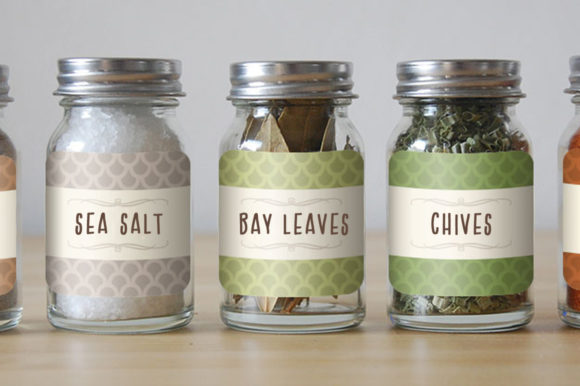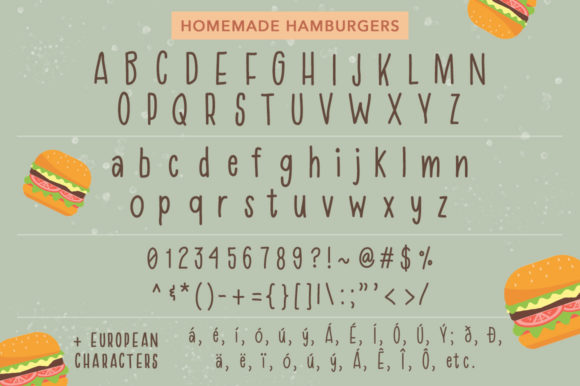
Introduction to Homemade Hamburgers Font
There’s something special about a handwritten note or a chalkboard sign that adds a personal touch to any creative project. It’s the imperfections and the authenticity that make it stand out. For designers looking for that unique, homemade feel, the Homemade Hamburgers Font is a game-changer.
Imagine being able to evoke the nostalgia of a summer BBQ or a cozy backyard dinner with just a few strokes of the pen. The Homemade Hamburgers Font does just that, with its simple, quaint design that screams “homegrown” and “organic”. Perfect for projects that need a touch of whimsy and personality, this font is a valuable addition to any design resource.
Whether you’re working on a design project that requires a transparent background or a free download, the Homemade Hamburgers Font is a high-quality option that’s sure to impress. Its versatility and charm make it a must-have for designers who want to add a personal touch to their work.
Key Features of Homemade Hamburgers Font
- Unique design concept: A creative project that brings together the idea of homemade burgers, perfect for food-related businesses or personal projects.
- High-quality design: The font is designed with high-quality graphics, resulting in a professional and appealing appearance.
Honest Review: Homemade Hamburgers Font
As a designer, I’m always on the lookout for unique and high-quality design resources to elevate my creative projects. The Homemade Hamburgers Font caught my eye, and I was excited to put it to the test.
Here are the highlights of my review:
- ✨ The font has a playful, nostalgic vibe that’s perfect for projects that need a casual, approachable feel.
- ✨ The high-quality design ensures that the font looks great at various sizes, making it a great choice for a range of applications.
- ⚠️ The font may not be suitable for projects that require a more formal or sophisticated tone.
Overall, I was impressed with the Homemade Hamburgers Font’s unique style and high-quality design. While it may not be the best fit for every project, it’s a great addition to any designer’s toolkit. With a little creativity, it’s easy to see how this font can add a fun and playful touch to any design project.
The Homemade Hamburgers Font is perfect for creative projects, such as designing menus, flyers, or social media graphics. Its high-quality design and transparent background make it a great resource for designers and non-designers alike.
To get the most out of the Homemade Hamburgers Font, be sure to use it in conjunction with other design elements that complement its playful and fun style. Experiment with different font sizes, colors, and arrangements to create a unique and eye-catching design.